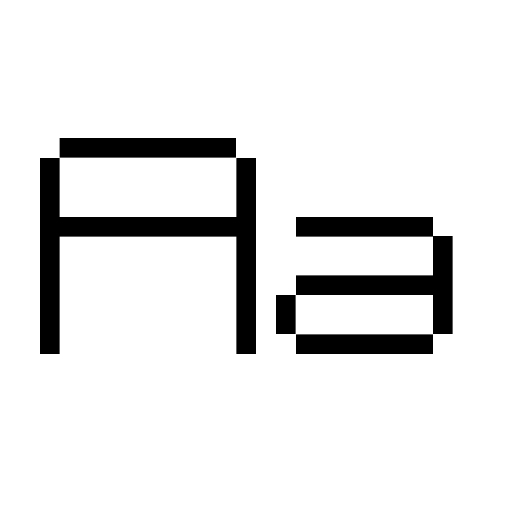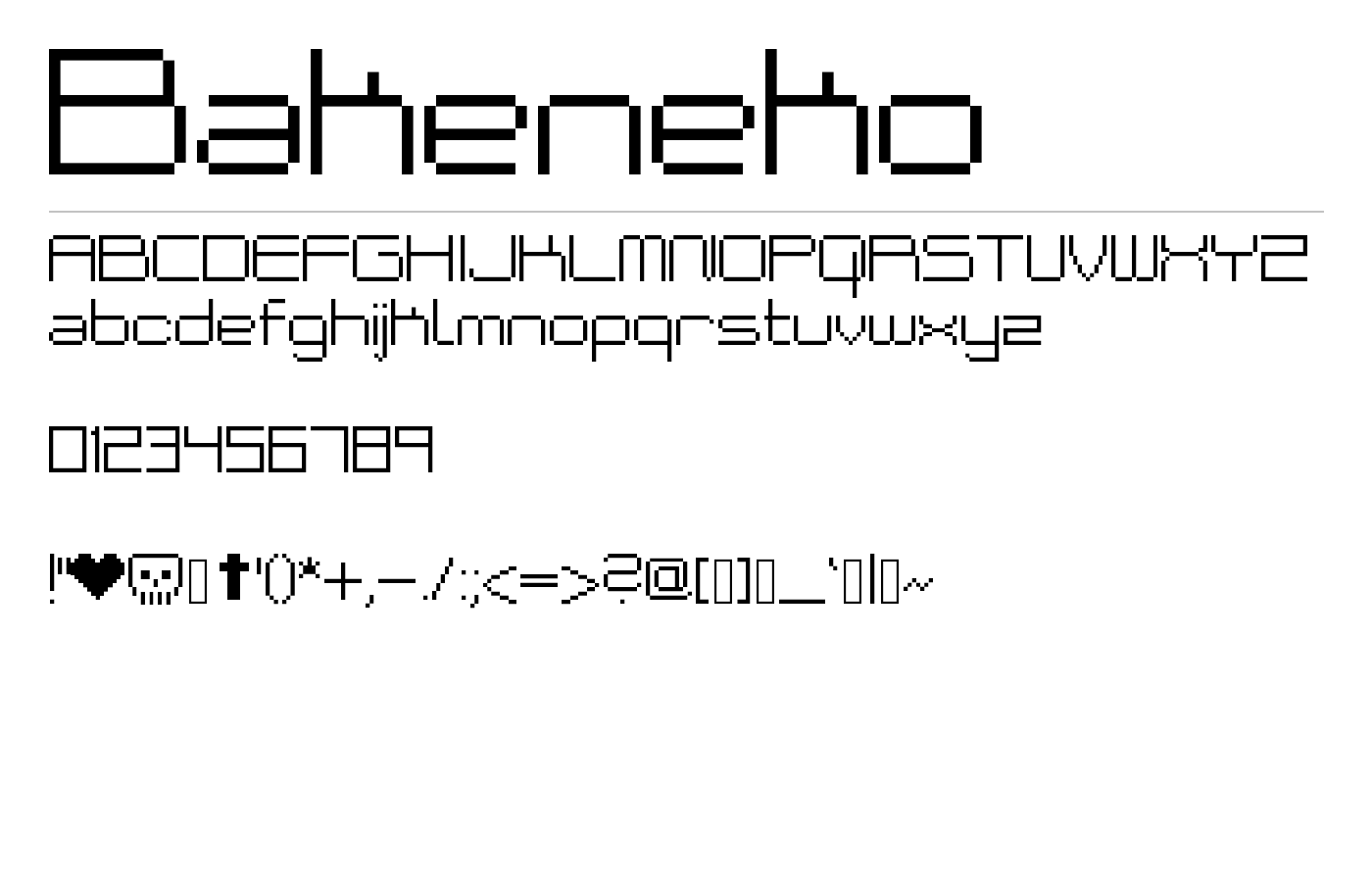
Bakeneko is a pixelated, geometric sans serif font that captures a retro digital style with its sharp, blocky letterforms and monospaced feel. Its light weight and consistent stroke width make it ideal for tech-inspired designs, gaming interfaces, and creative projects seeking a nostalgic yet modern pixel art vibe. This font works best in headlines, logos, and digital art where a distinctive, pixel-perfect aesthetic is desired.
Bakeneko Font
About Bakeneko Font